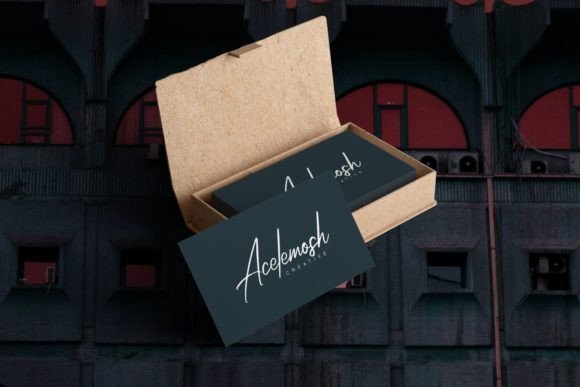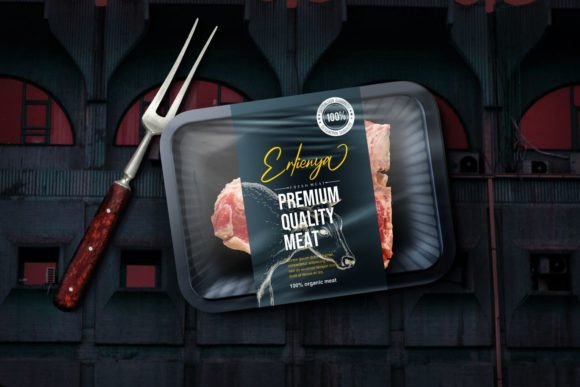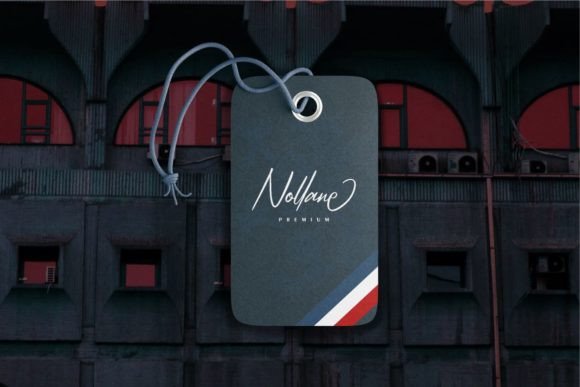
Introduction to Fantastica Font
Fantastica is a delicate and elegant handwritten font.
Its distinct and well-balanced letters make this font a masterpiece Fall in love with its incredibly versatile style and use it to create spectacular designs.
Key Features of Fantastica Font